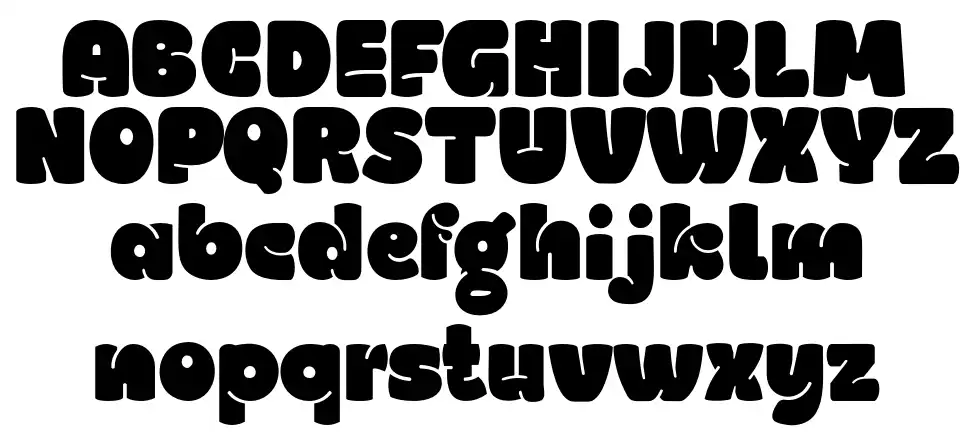
Karen Font By 177studio Fontriver Download karen regular font | 1 style free font. file size 0.02mb | bold,cartoon,funny,puffy,177studio,karen. Looking for karen fonts? click to find the best 10 free fonts in the karen style. every font is free to download!.
Karens Font Download Fonts To embed your selected fonts into a webpage, copy this code into the head of your html document. standard . You can download the best fonts, free fonts for personal or commercial use. with beautiful script type, professional sans serif font and more. Karen font, a quirky and unique display typeface that adds joy to your designs. with playful, rounded characters, it brings a bold personality to your text. ideal for t shirts, packaging, business cards, and more. ယမၤတၢ်ခဲလၢၥ်သ့လၢပှၤလၢအဒုး ဆူၣ်ထီၣ်ယဂံၢ်ယဘါတဂၤအပူၤလီၤ. made with ️ in rangoon. Karen font download is available free from fontget. karen is a fancy type font that can be used on any device such as pc, mac, linux, ios and android. this font has 1 variant available. Currently being developed, the goal is to create a comprehensive on line reference tool where visitors can access a wide variety sgaw karen language resources from a single web page.
Karen Font Fontmagic Karen font, a quirky and unique display typeface that adds joy to your designs. with playful, rounded characters, it brings a bold personality to your text. ideal for t shirts, packaging, business cards, and more. ယမၤတၢ်ခဲလၢၥ်သ့လၢပှၤလၢအဒုး ဆူၣ်ထီၣ်ယဂံၢ်ယဘါတဂၤအပူၤလီၤ. made with ️ in rangoon. Karen font download is available free from fontget. karen is a fancy type font that can be used on any device such as pc, mac, linux, ios and android. this font has 1 variant available. Currently being developed, the goal is to create a comprehensive on line reference tool where visitors can access a wide variety sgaw karen language resources from a single web page.